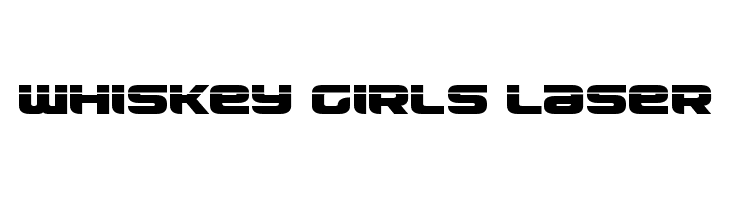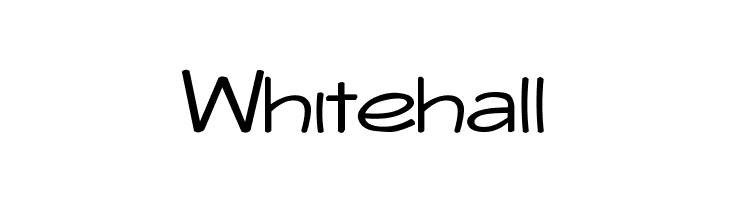
A bold, futuristic font with geometric, blocky characters.
A bold, geometric font with a modern and futuristic style.
A bold, expressive handwritten font with brush-like strokes.
A bold, dripping font perfect for spooky and horror-themed designs.
A delicate, flowing script font with elegant curves and a handwritten feel.
A bold, geometric sans-serif font with high contrast and framed uppercase letters.
An elegant, flowing script font with smooth, connected strokes.
A dynamic, cursive font with bold, sweeping strokes and a modern, artistic flair.
A bold, high-contrast font with playful, artistic elements and varied stroke widths.
A bold, expressive handwritten font with fluid, cursive strokes.